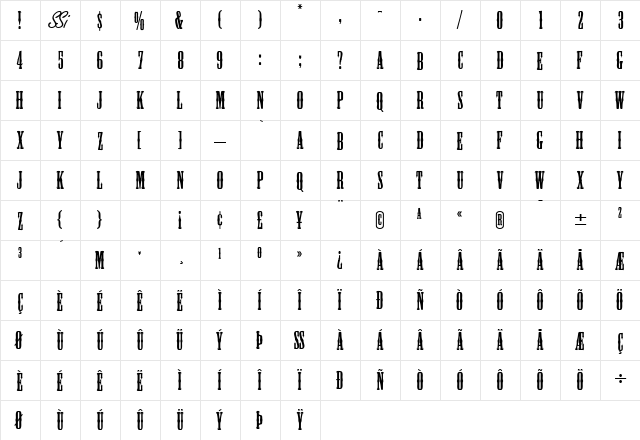
PlugCapsSSK Regular
Design Context for PlugCapsSSK Typeface
PlugCapsSSK takes a measured approach to typography — its balanced proportions and neutral character make it a reliable workhorse for both digital and print work.